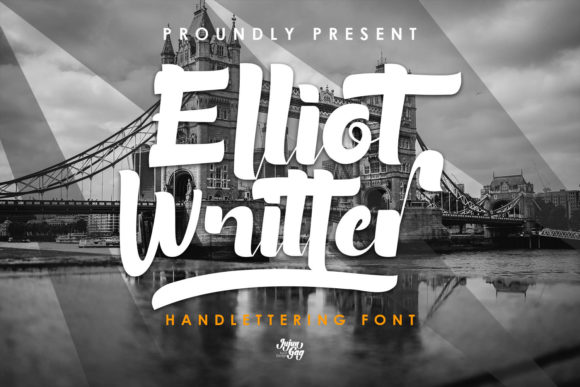
Introducing Elliot Writter, the captivating script font that will transform your designs into stunning masterpieces. This modern and incredibly stylish handwritten font exudes elegance and charm, making it the perfect choice for adding a touch of sophistication to your creative projects.
With Elliot Writter, you'll have the power to craft eye-catching Christmas letters that will leave a lasting impression on your loved ones. Its beautiful swashes and carefully crafted glyphs allow you to create personalized messages that are both heartfelt and visually stunning.
Imagine sending out Christmas greetings adorned with Elliot Writter's graceful strokes, evoking a sense of warmth and nostalgia. Your words will come alive, carrying the spirit of the season with every curve and flourish.
But Elliot Writter's charm extends beyond Christmas letters. Its versatility shines through in invitations, wedding stationery, branding, and social media graphics. Whether you're a seasoned designer or a creative enthusiast, this font will elevate your designs to new heights.
Unlock the endless possibilities of Elliot Writter and embrace the beauty of handwritten elegance. Let your creativity soar and captivate your audience with designs that speak volumes.